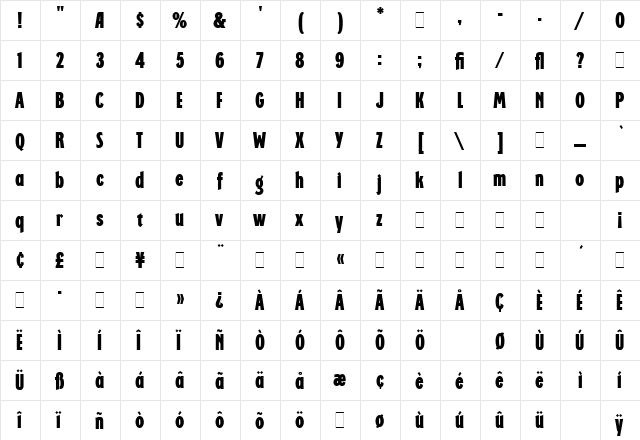
Regatta Condensed LET Plain
Design Context for Regatta Condensed LET Typeface
Regatta Condensed LET is a composed and adaptable typeface that performs quietly and consistently across a wide range of design contexts. The condensed width makes it efficient for tight spaces without sacrificing legibility.